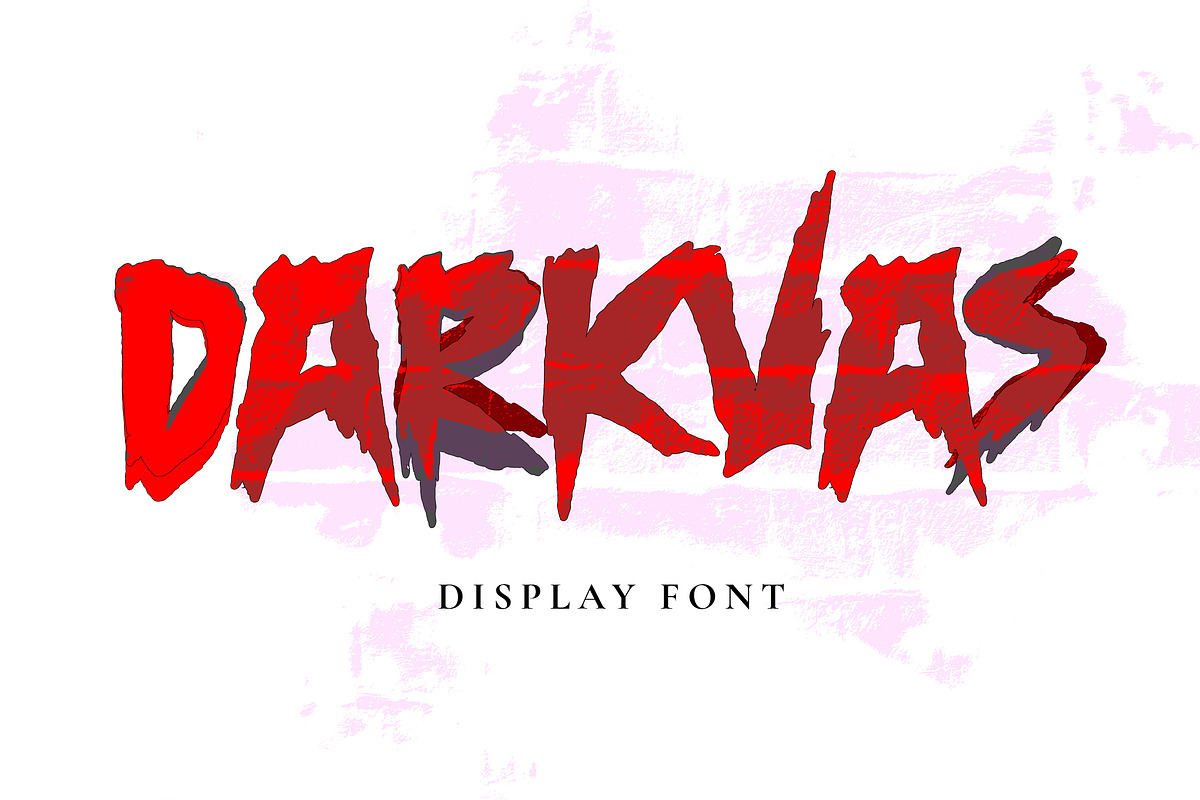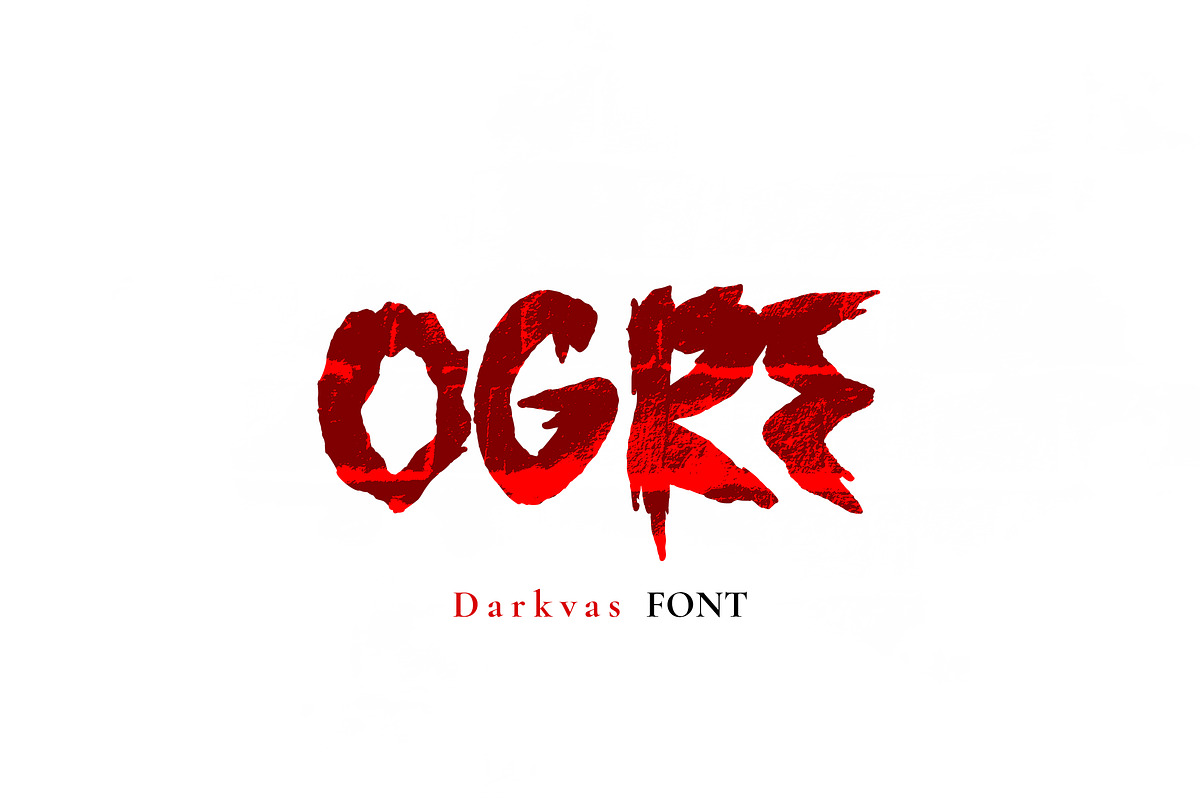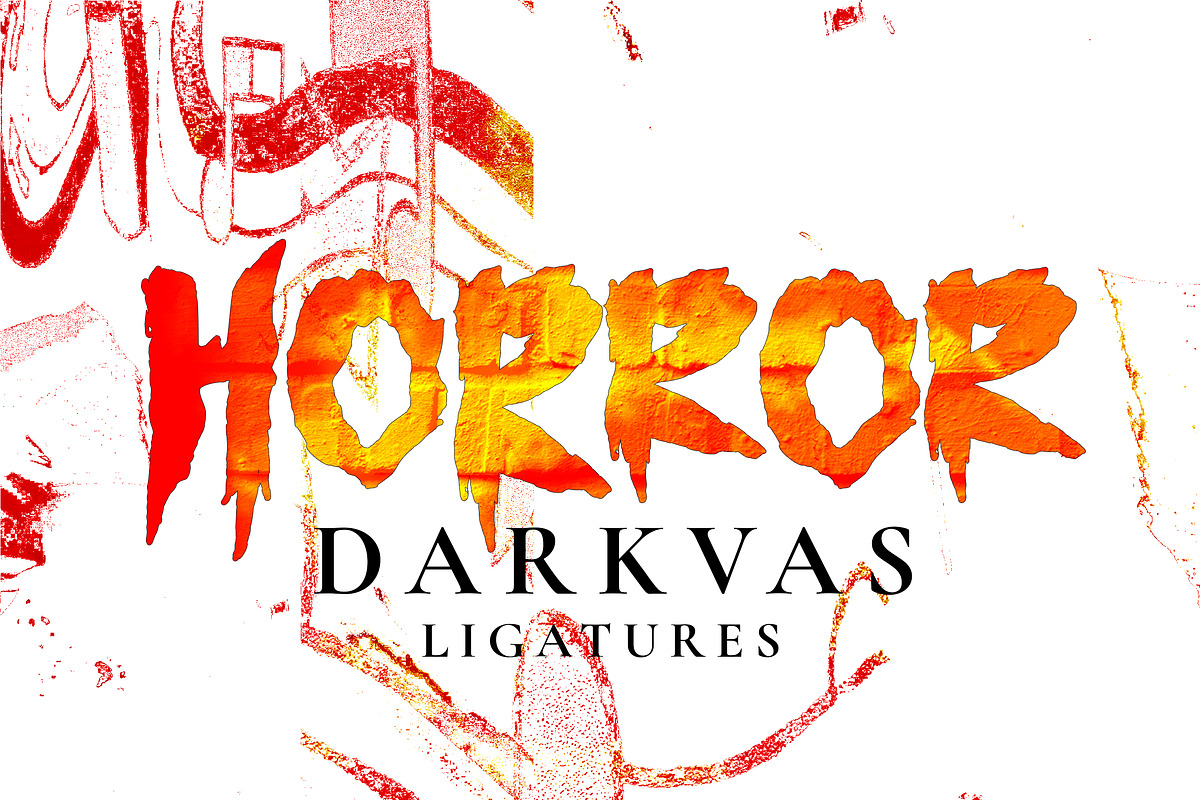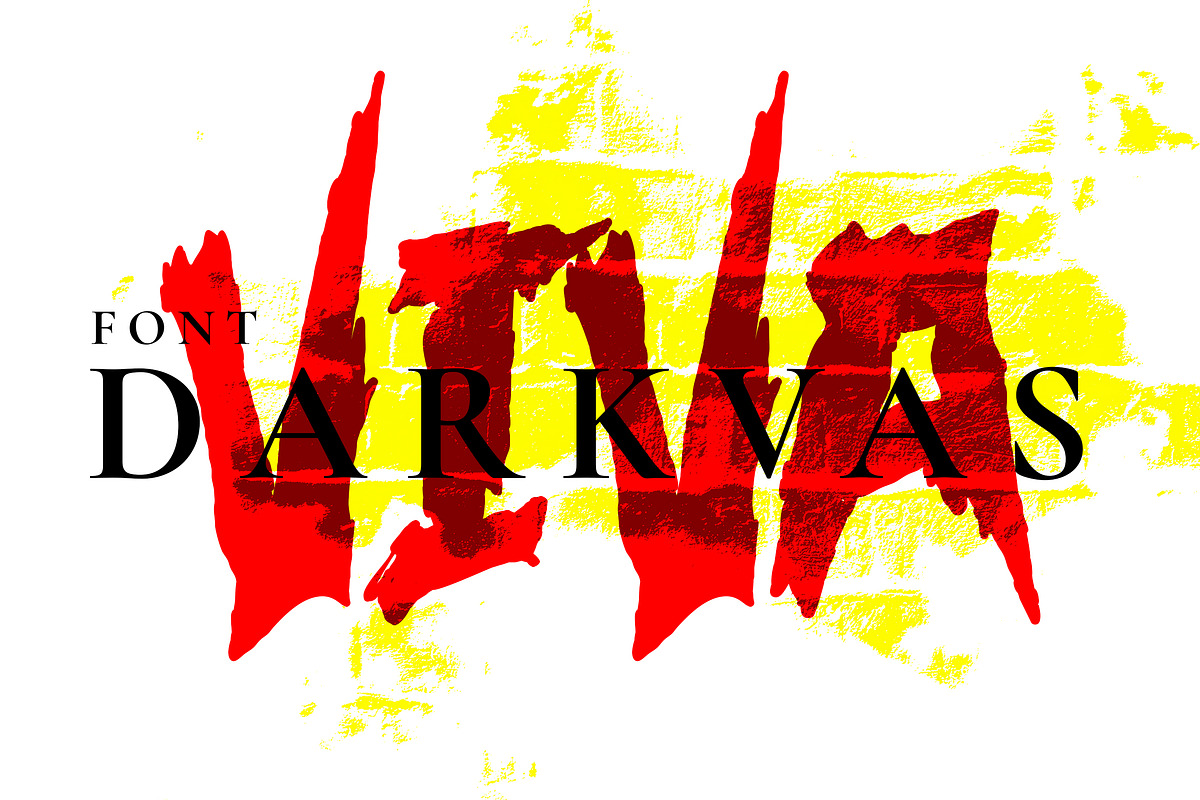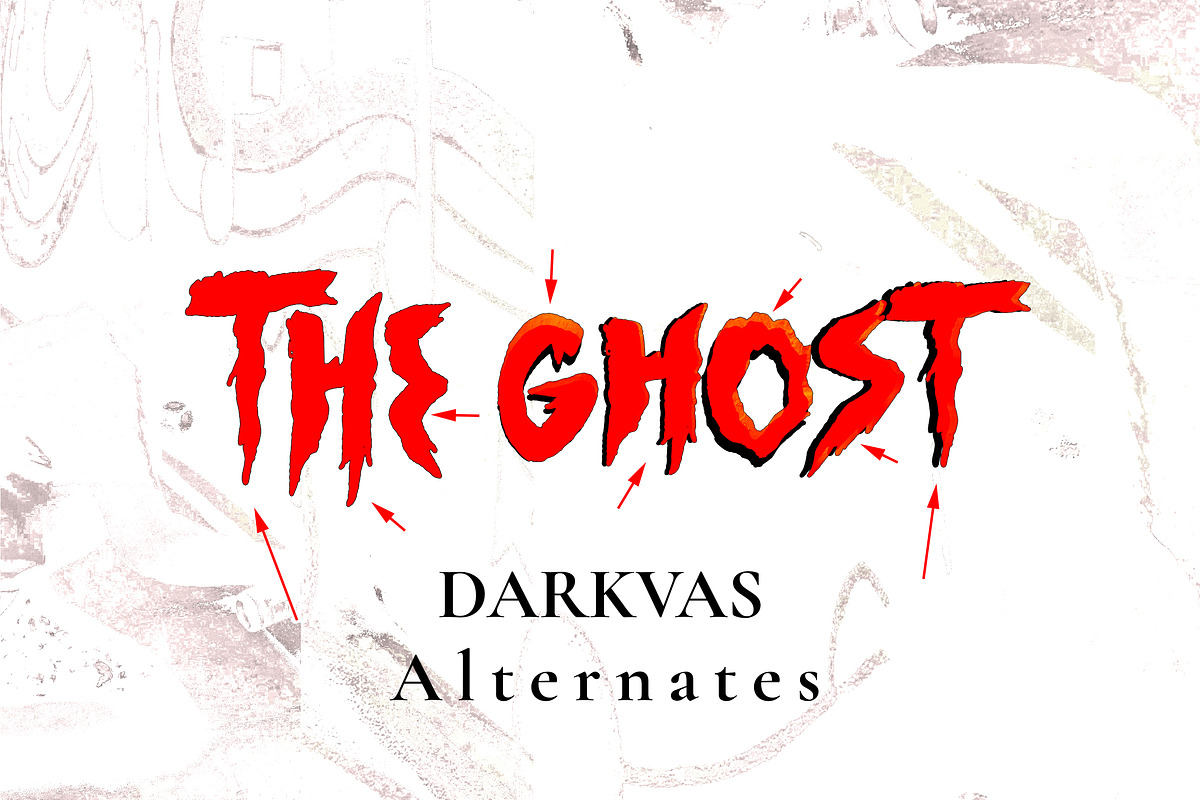
Darkvas -Scary and cool display font
Darkvas is a scary, creepy, quirky, and cool display font. You can successfully add this font on October party invitations, cards, greetings cards, social media posts, or pretty much anything related to Halloween. This font is PUA encoded which means you can access all of the glyphs. (please type the preview to see if I have what you need!)